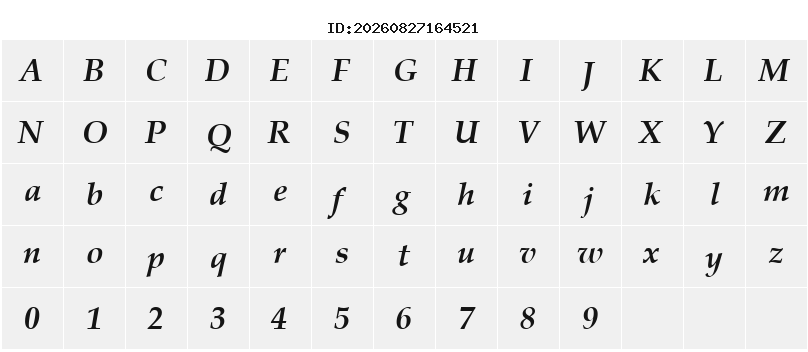
• Font Name: 017-CAI978
• Full Font Name: Book Antiqua Gras Italique
• Designer: Monotype Type Drawing Office
• Manufacturer: Monotype Typography, Inc.
• Description: This is a roman typeface based on pen-drawn letters of the Italian Renaissance. Because it is distinctive and gentle in appearance it can be used to give a document a different feel than is given by the more geometrical designs of most text faces. It is also useful for occasional lines, as in letter headings and compliments slips. Its beautiful italic has many uses of its own.